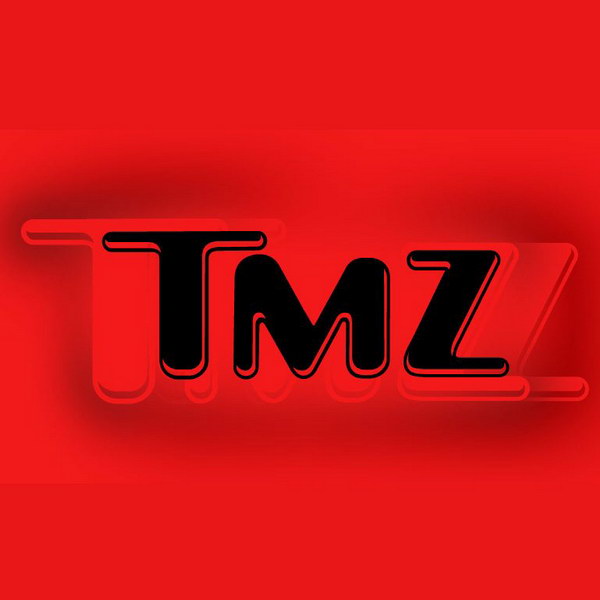
TMZ Font
TMZ's logo features a black logotype that closely resembles the Amelia font designed by Stanley Davis in 1967. The font is a commercial one, which can be purchased and downloaded here.